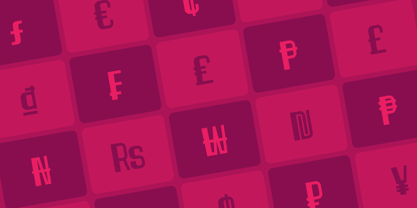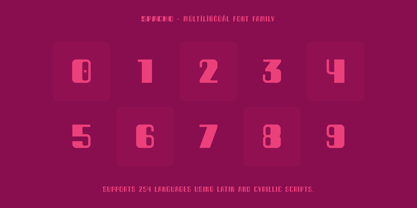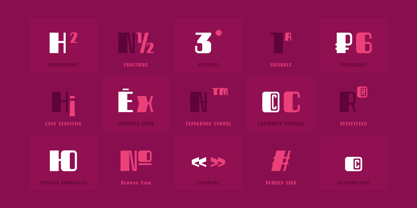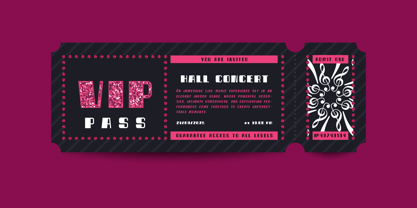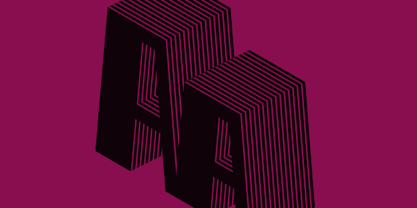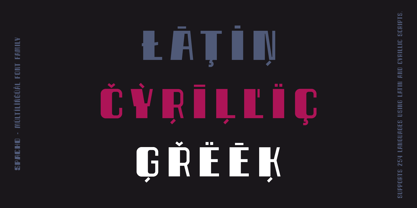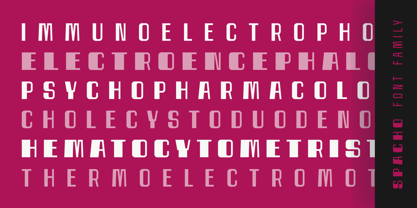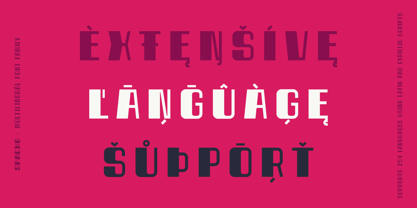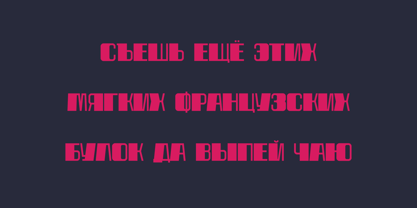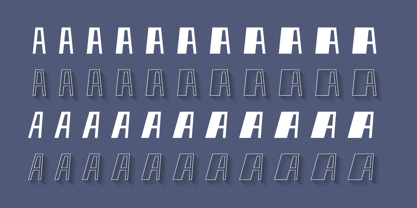
Spacho
by AlperCakici
The Spacho Font Family was designed by Alper Çakıcı and published by AlperCakici. Spacho contains 44 styles and family package options. More about this family
Spacho – A Modern Sans Serif Font Family Spacho is a clean and versatile sans serif typeface family built with geometric precision and contemporary style. It supports 254 Languages. With 44 instances ranging from Thin to Black and matching Italics, Spacho adapts effortlessly to any design context—from bold, impactful headlines to refined body text. Designed for modern branding, editorial layouts, web typography, and packaging, Spacho combines clarity with timeless sophistication.
Designers: Alper Çakıcı
Foundry: AlperCakici